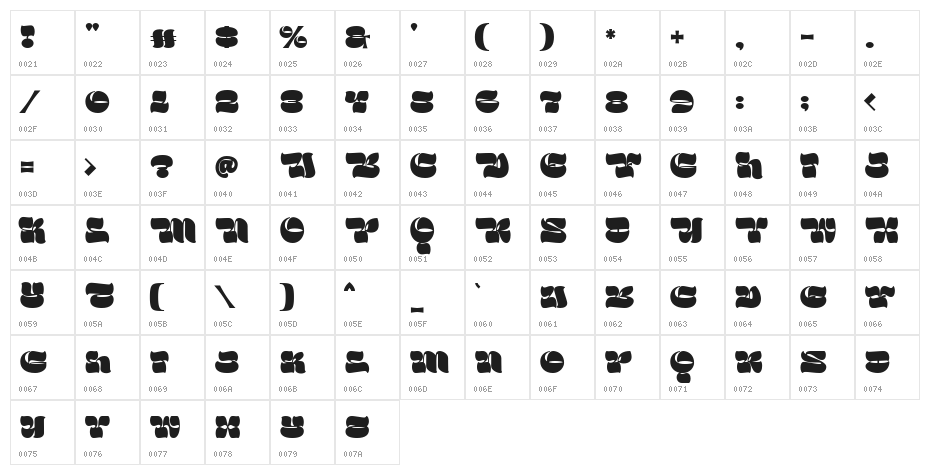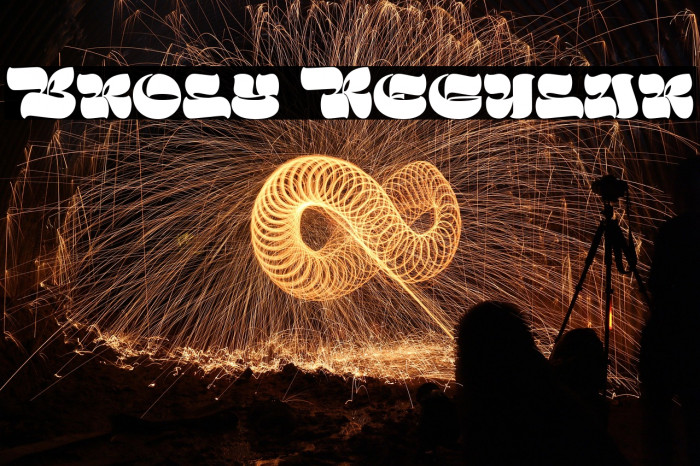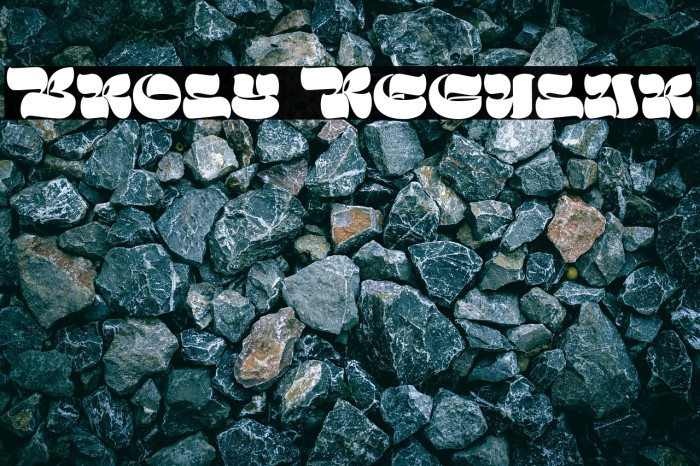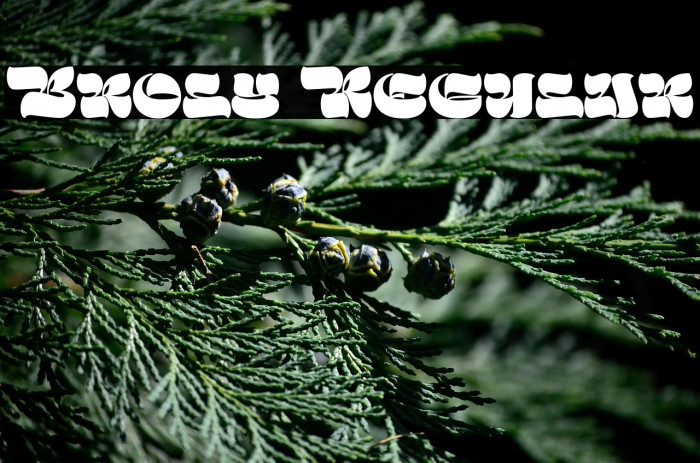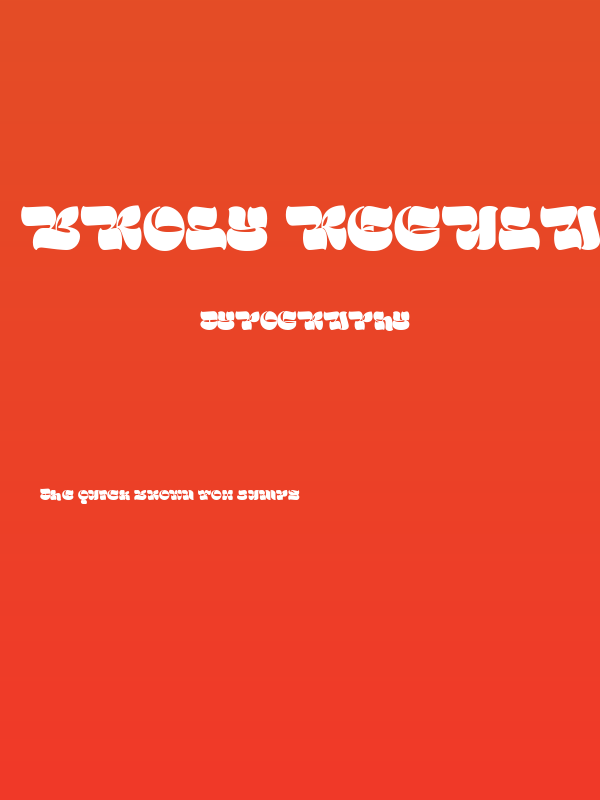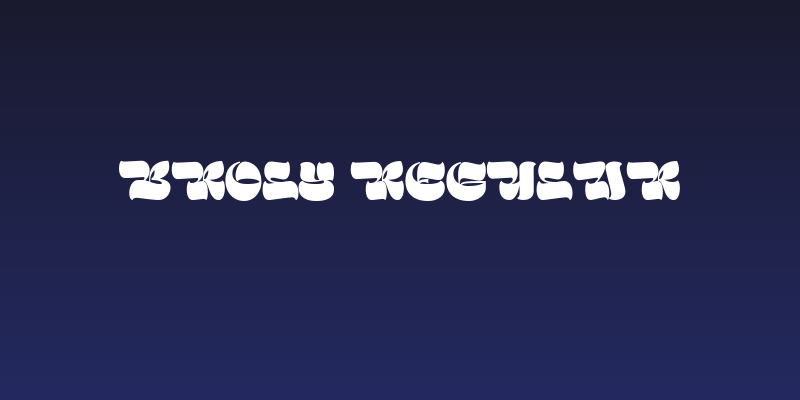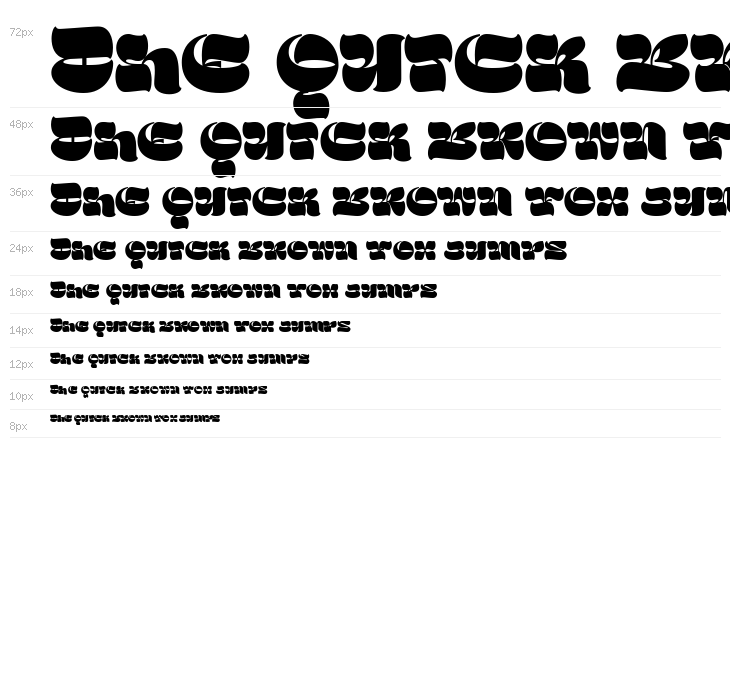
Broly Regular Font
Broly Regular Description
This font features a bold and dynamic design with thick, rounded strokes and a playful, energetic appearance. The characters are heavily stylized, with a unique blend of curves and sharp edges that create a sense of movement and vibrancy. The uppercase and lowercase letters maintain a consistent weight, contributing to a cohesive look. Numbers and special characters are equally bold and expressive, making them stand out. The overall design is eye-catching and suitable for projects that require a strong visual impact.
| Proposed Projects | Ideal for posters, logos, branding materials, and any design that requires a strong, impactful visual presence. |